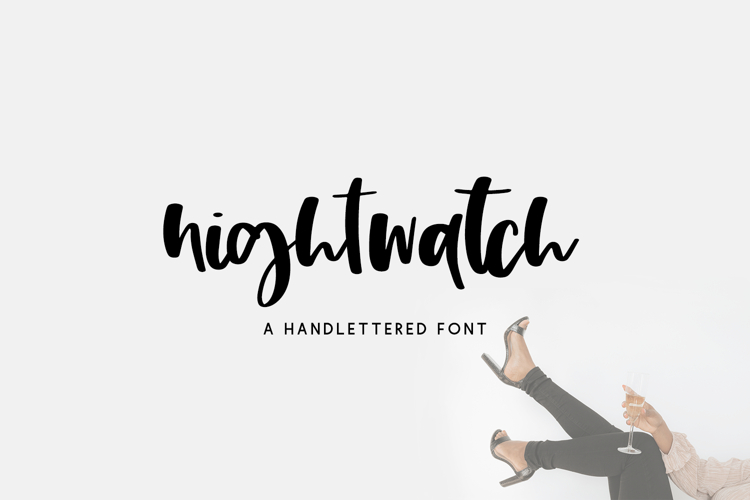
Introducing Nightwatch, a bold script font. Nightwatch is a little calligraphy, a little signature, and features some fun extras to customize your text.
- 31 alternate lowercase characters
- 1 ligature - ll